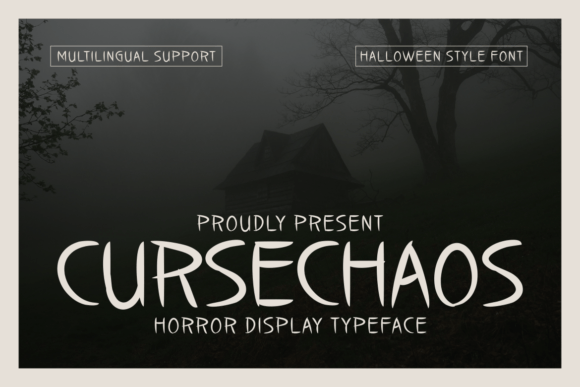
Unleash the Eerie Enchantment of Cursechaos Font
Immerse yourself in the hauntingly beautiful world of Cursechaos, a captivating display font that conjures an atmosphere of mystery and enchantment. Its meticulously crafted characters, reminiscent of phantom-like whispers, will cast a spellbinding presence in your designs.
With Cursechaos, you hold the key to conjuring an array of Halloween magic. Imagine crafting otherworldly party invitations that evoke the thrills of trick-or-treating nights, or etching eerie posters that warn of the lurking shadows on All Hallow's Eve. Transform ordinary merchandise into enchanting keepsakes, adorning them with Cursechaos's mystical glyphs.
Journey through the haunted mansion of your imagination, and let Cursechaos lead you through its winding corridors of intrigue. Weave tales of terror with greeting cards that whisper secrets of the supernatural, or design chilling warning signs that beckon the brave to enter haunted realms.
Beyond Halloween, Cursechaos holds the power to cast its spell on diverse creative projects. Unleash its eerie charm on website designs with Halloween themes, adding an element of spine-tingling interactivity. The possibilities are as limitless as the haunted landscapes of your imagination.